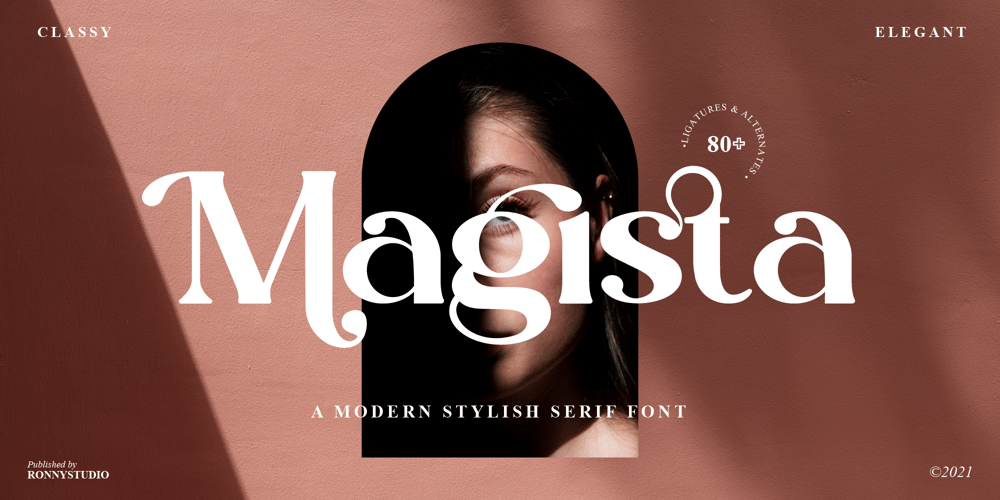
Magista
Magista font
Magista Font Family was designed by Rony Rizki Jaya and published by Ronny Studio. Magista contains 2 styles and family package options. Magista is an elegant and chic serif font. This font is impressive and features elegant and professionally shaped fonts, and as a result, it will easily match a variety of creations that require a different touch. Add it confidently to your projects, and you will love the results.This font is PUA encoded which means you can access all of the glyphs and swashes with ease! 2 Style Font :- Regular- ItalicMagista Features :- Uppercase- Lowercase- Numbers & Punctuation- Ligature- Alternative- Multilingual Support- Simple installationAll of features and special characters of this font are included in one file. So it is easy to accessed by using program or software that support the opentype like Adobe Illustrator, Adobe Photosop, and Adobe Indesign). This font also very easy to use because compatible for all software even for non-opentype supported.Please comment us if you have any questionsThank you and have a nice day.thank you